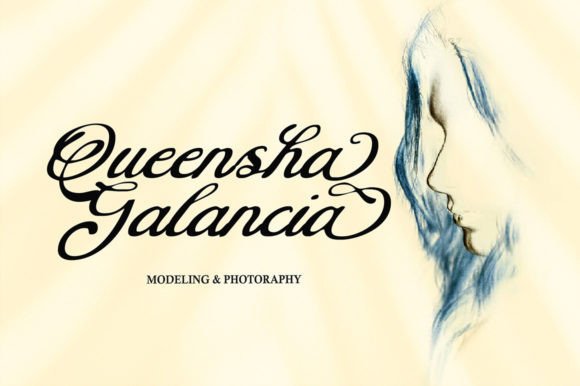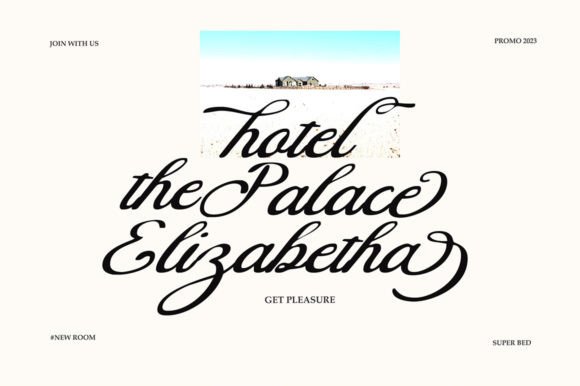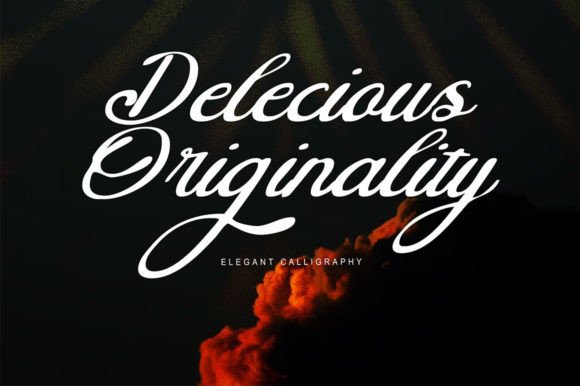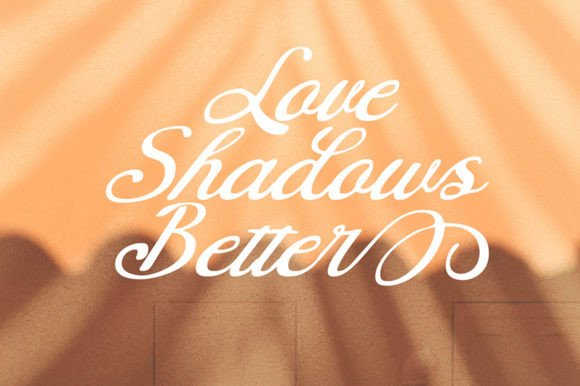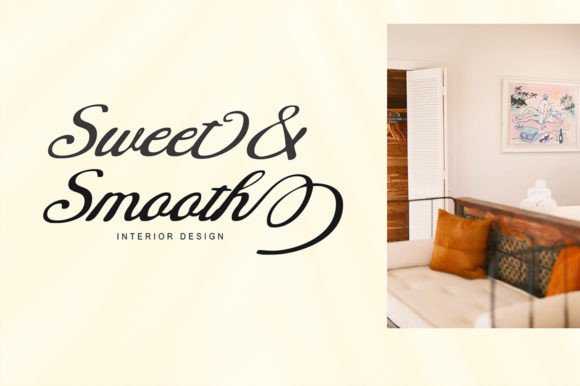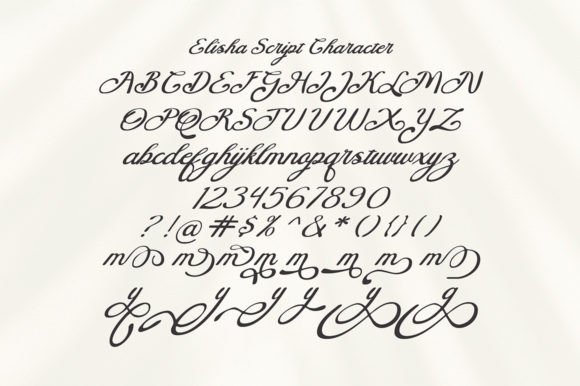
Introduction to Elisha Font
Have you ever found yourself staring at a blank page, searching for the perfect font to bring your creative project to life? The moment of truth has finally arrived – we’re excited to introduce you to the stunning Elisha Font!
Imagine being able to add a touch of elegance and sophistication to your designs, effortlessly creating a high-quality visual experience that captivates your audience. With the Elisha Font, you’ll have the perfect design resource at your fingertips, ready to elevate your work to new heights.
Key Features of Elisha Font
- Unique, elegant script font with a transparent background, perfect for adding a touch of sophistication to your designs.
- Available in 1 style, with 1 weight and 1 version, offering a consistent and professional look.
Honest Review: Elisha Font
I recently had the chance to work with the Elisha Font, and I must say it’s been a game-changer for my creative projects. As a designer, I’m always on the lookout for high-quality fonts that can elevate my designs to the next level.
- ✨ High-quality design: The Elisha Font is beautifully crafted with attention to detail, making it perfect for any design project.
- ✨ Transparent background: This feature allows for seamless integration with any design element, giving me more creative freedom.
However, there are a few limitations I’ve encountered:
- ⚠️ Limited character set: The font only comes with a basic character set, which can be a problem for designers who need to use it for extensive text-based projects.
- ⚠️ Limited font styles: While the font is beautifully designed, it only comes in a few styles, which can limit its versatility.
Overall, I’m really impressed with the Elisha Font. It’s a fantastic design resource that’s perfect for any creative project. While it has its limitations, the pros far outweigh the cons, making it a must-have for any designer’s collection.
Elisha Font
Elisha Font is a high-quality design resource perfect for any creative project. This elegant font is available for free download, making it an excellent choice for designers and artists looking to add a touch of sophistication to their work.
Tips for Getting the Most Out of Elisha Font
For the best results, use Elisha Font with a transparent background to create a clean and elegant design. Experiment with different font sizes, colors, and styles to find the perfect combination for your creative project.
Elisha Font is perfect for use in a variety of creative projects, including:
– Wedding invitations and stationery
– Business cards and marketing materials
– Digital presentations and documents
– Social media graphics and ads
When to use: Great Vibes Font is suitable for wedding invitations, branding, and any other design project that needs a romantic and elegant feel. It’s a great alternative to Elisha Font for projects that require a more refined and sophisticated look.